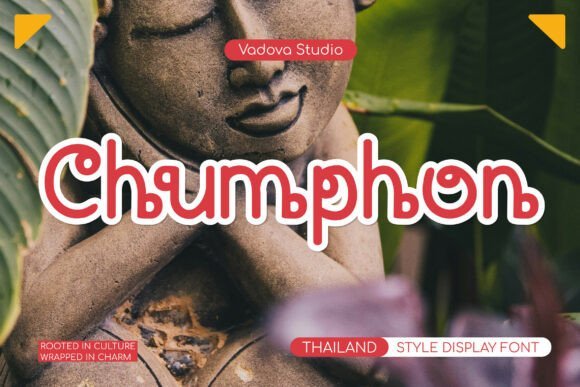
Introduction to Chumphon Font
Chumphon is a playful display typeface inspired by Thai cultural aesthetics, featuring rounded forms, soft curves, and whimsical terminals that create a friendly and expressive visual tone.
Its organic shapes and charming personality make it stand out in vibrant layouts while maintaining a cohesive typographic rhythm Delivered in high-quality font formats, this typeface is intended for display use and not optimized for long-form body text.
Key Features of Chumphon Font